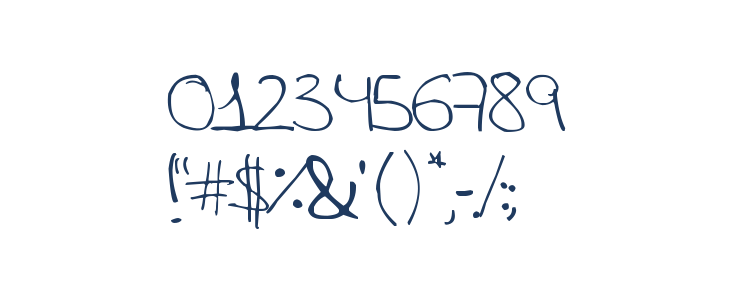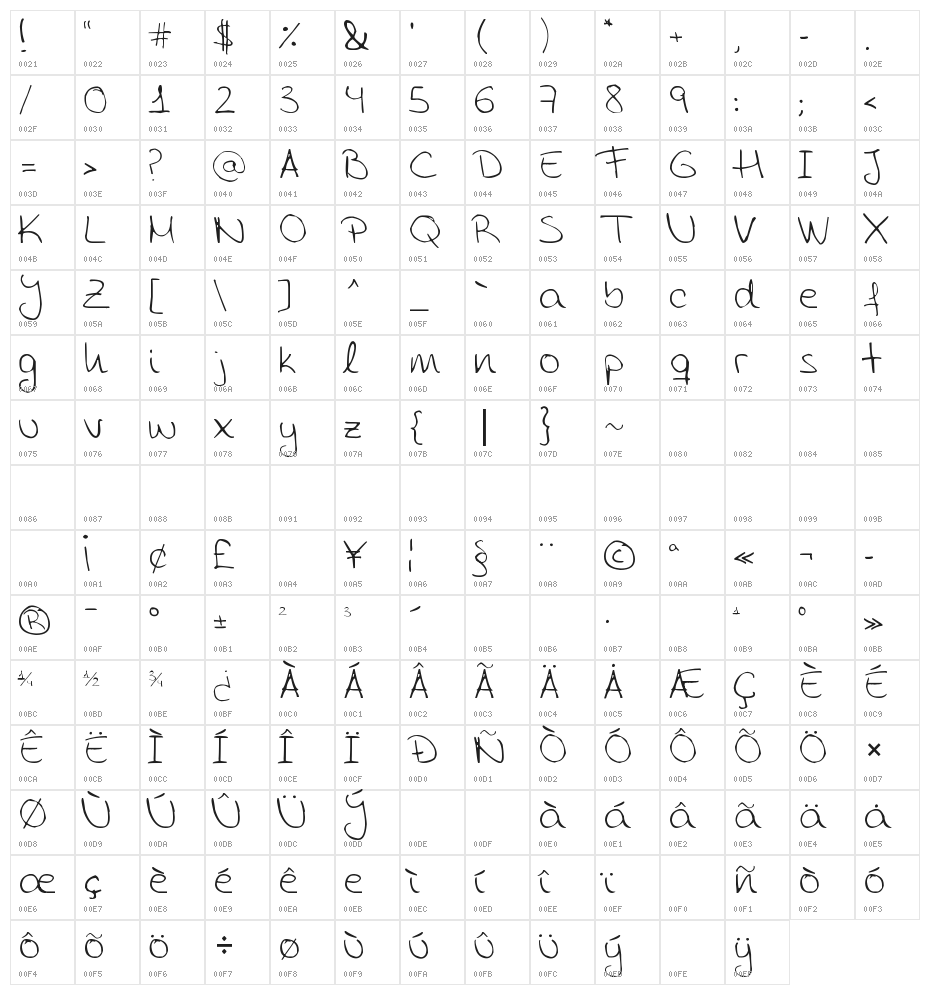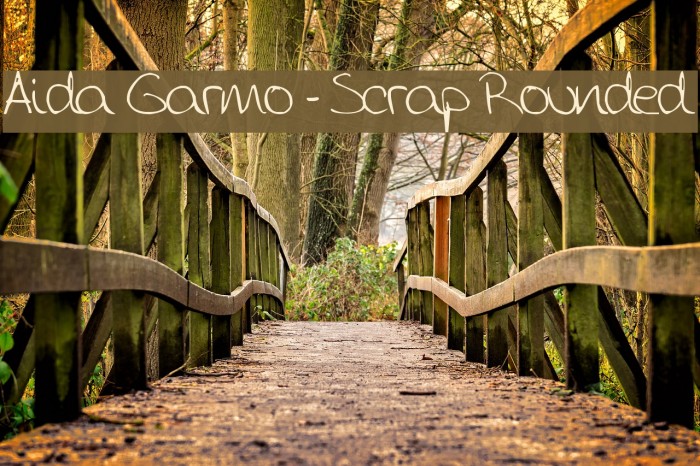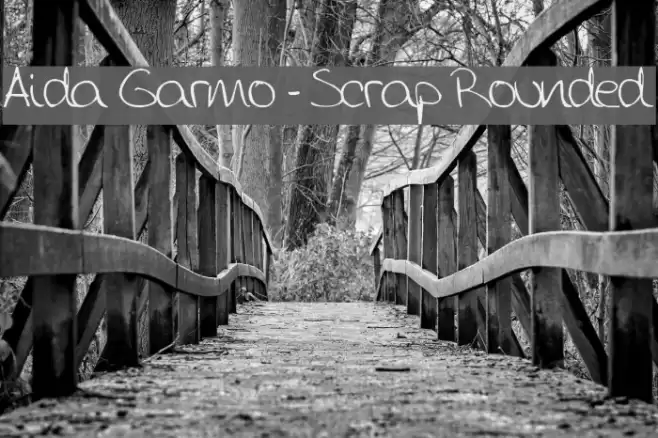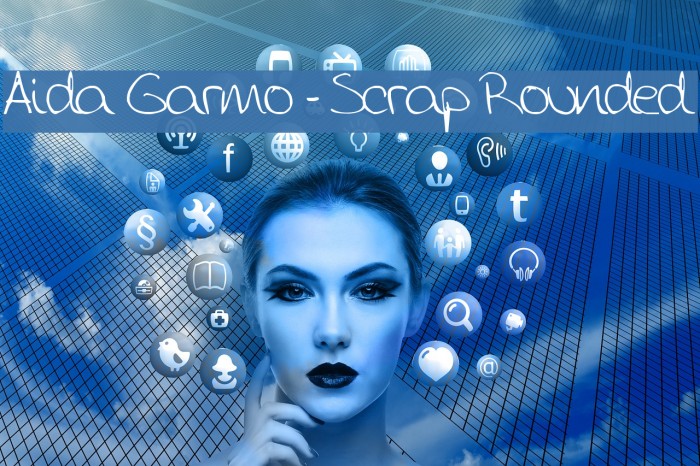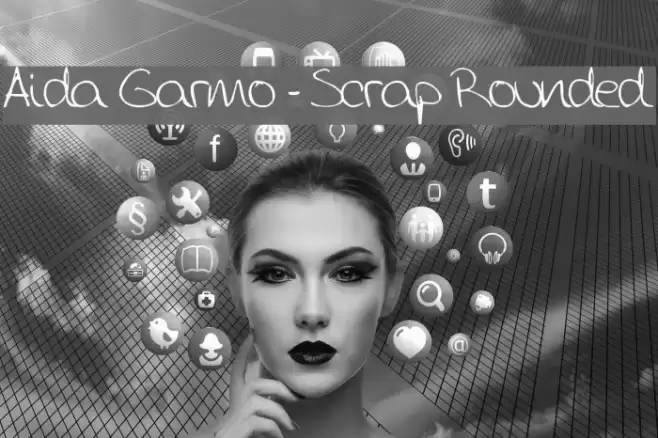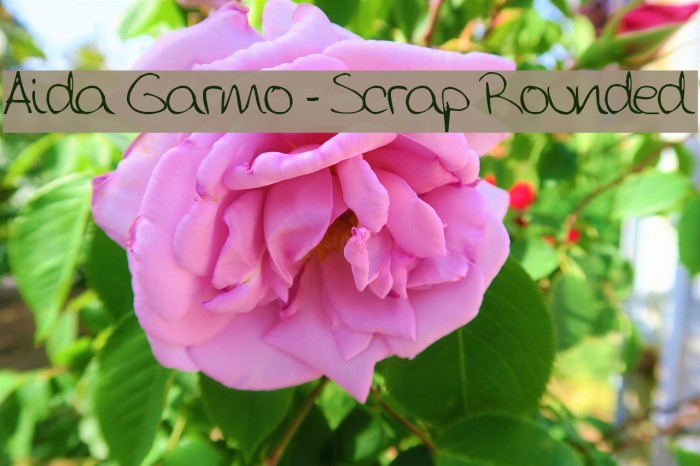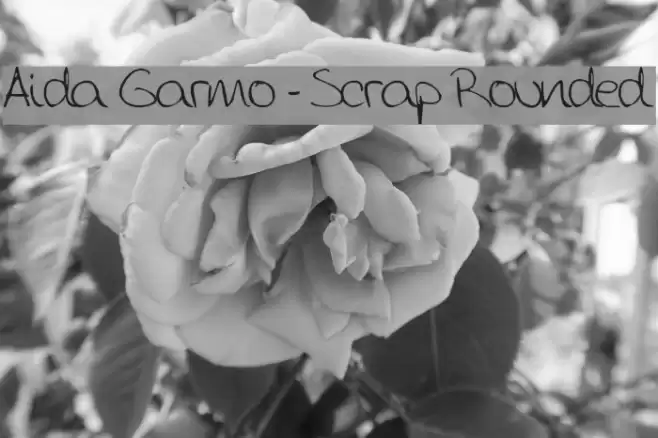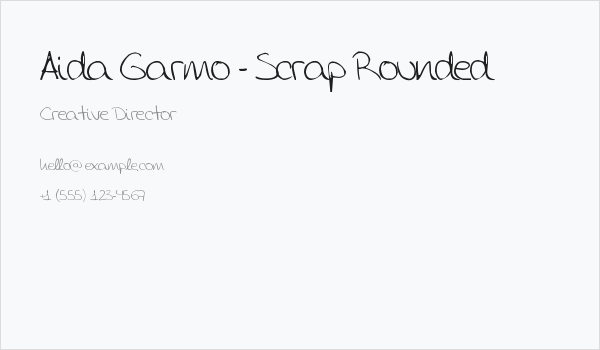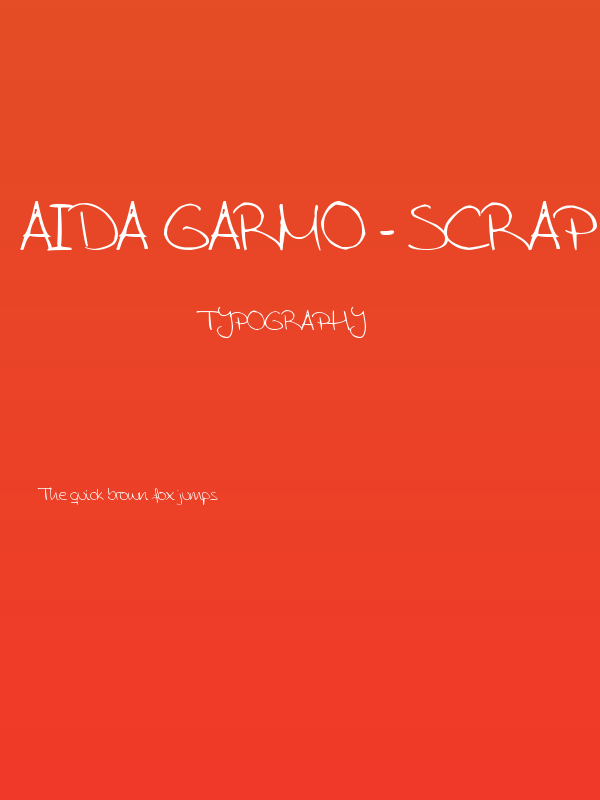
Aida Garmo - Scrap Rounded Font
Aida Garmo - Scrap Rounded Description
This font features a playful, handwritten style with rounded edges and a casual, informal appearance. The letters are slightly irregular, giving it a dynamic and lively feel. The uppercase and lowercase characters maintain a consistent flow, while the numerals and special characters complement the overall aesthetic. The strokes are moderately thick, contributing to a medium contrast in the design. This font's whimsical nature makes it suitable for creative and artistic projects.
| Use Case | Logos, Posters, Greeting Cards |
| Proposed Projects | Ideal for greeting cards, children's books, casual branding, and creative posters. |